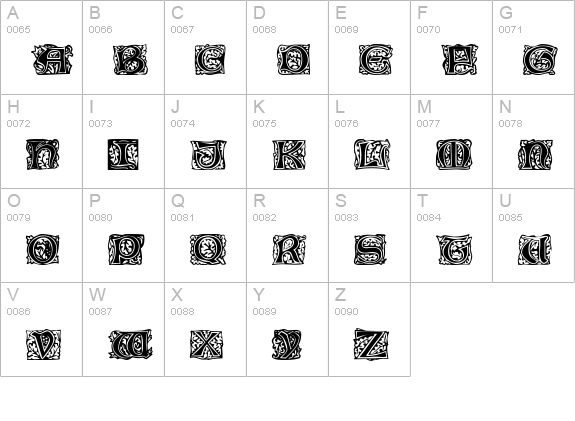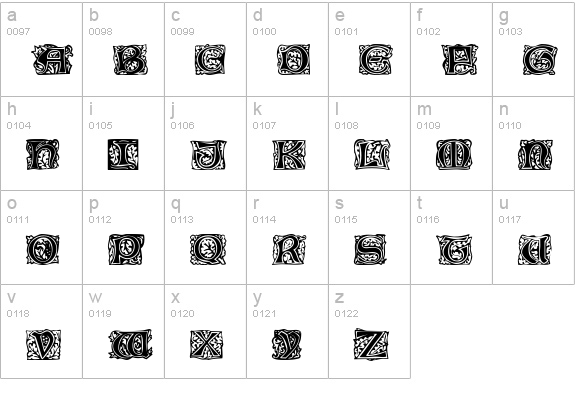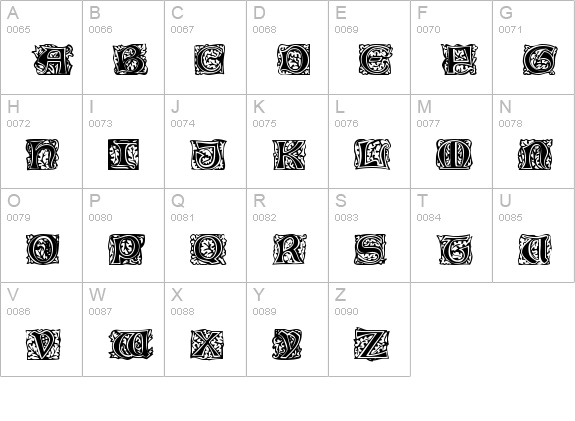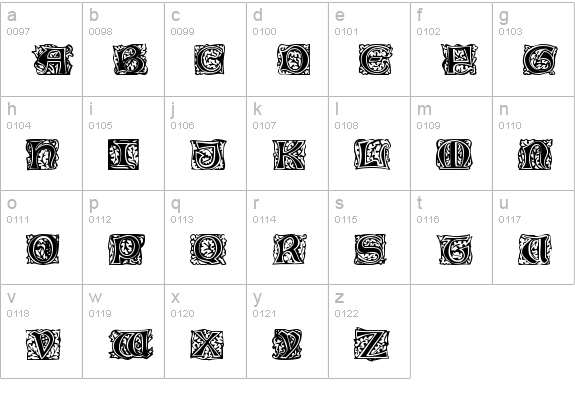
CobleighTitlingCaps Font Details
CobleighTitlingCaps uppercase A-Z preview CobleighTitlingCaps lowercase a-z preview CobleighTitlingCaps numbers 0-9 preview
CobleighTitlingCaps font exudes elegance and sophistication with its classic serif style and refined letterforms. This versatile font is perfect for creating eye-catching headings, titles, and logos that demand attention. The timeless design of CobleighTitlingCaps font gives your projects a touch of timeless charm and professionalism. Best of all, CobleighTitlingCaps font is available for free download at FontsMarket.com, making it accessible to all designers and creatives looking to add a touch of elegance to their work. Whether you're working on a branding project, editorial design, or any other creative endeavor, CobleighTitlingCaps font is the perfect choice to elevate your designs to the next level. Download it today and see the difference it can make in your projects!